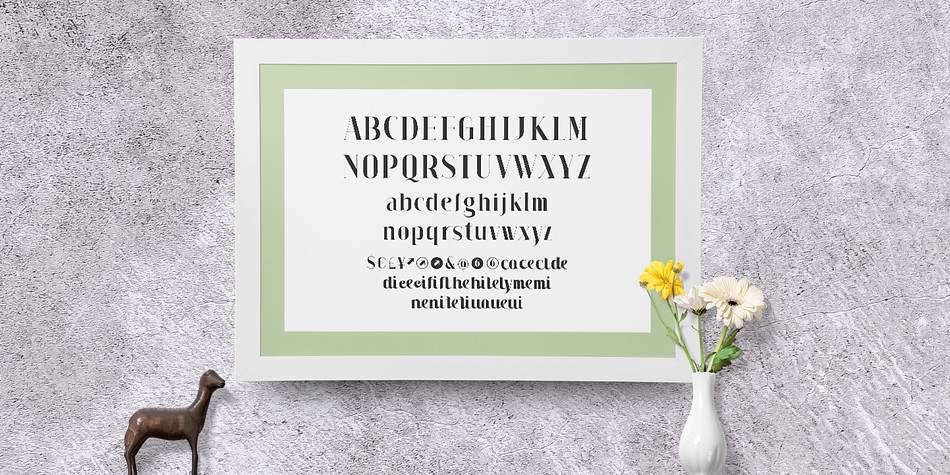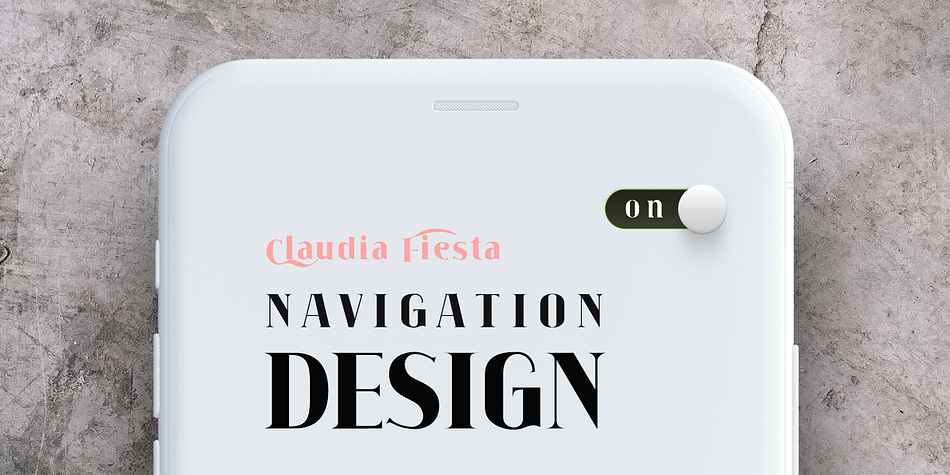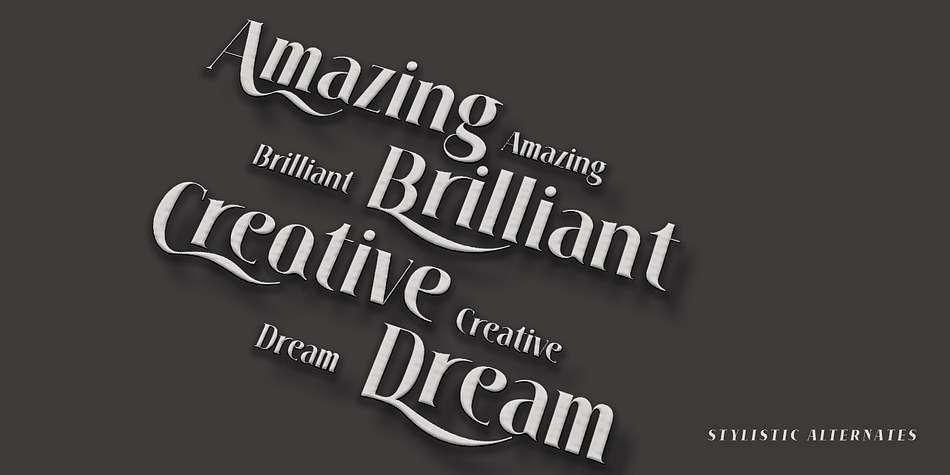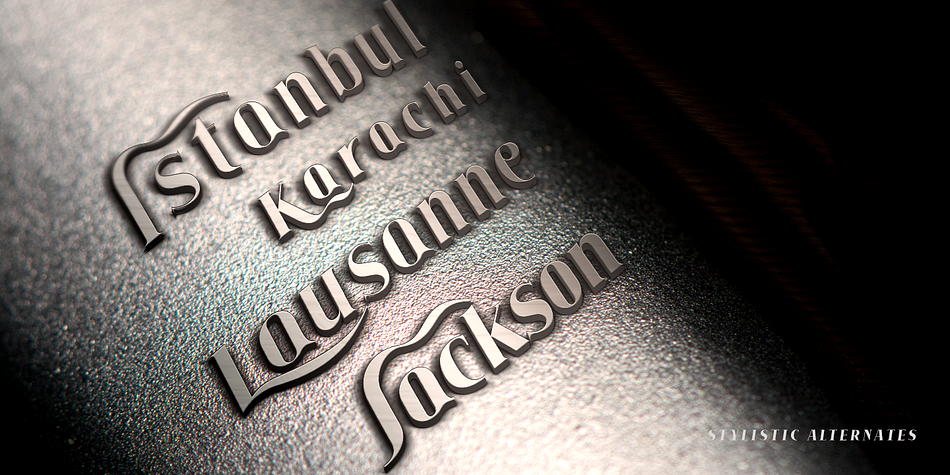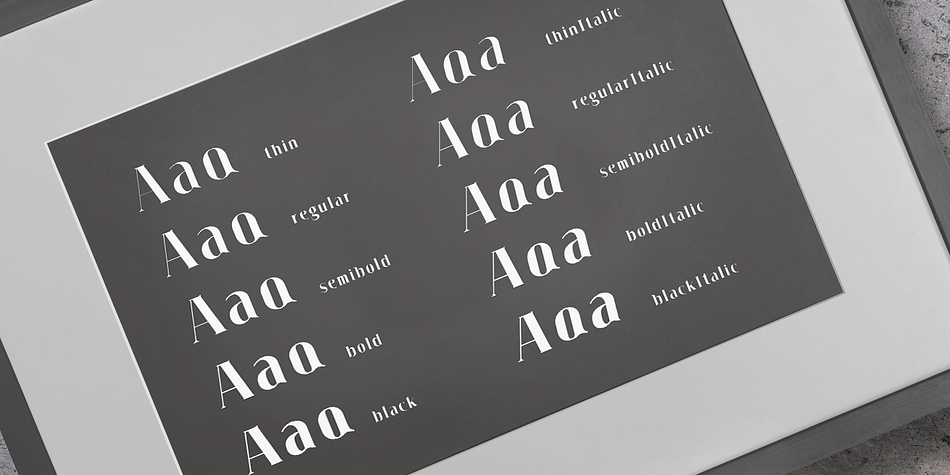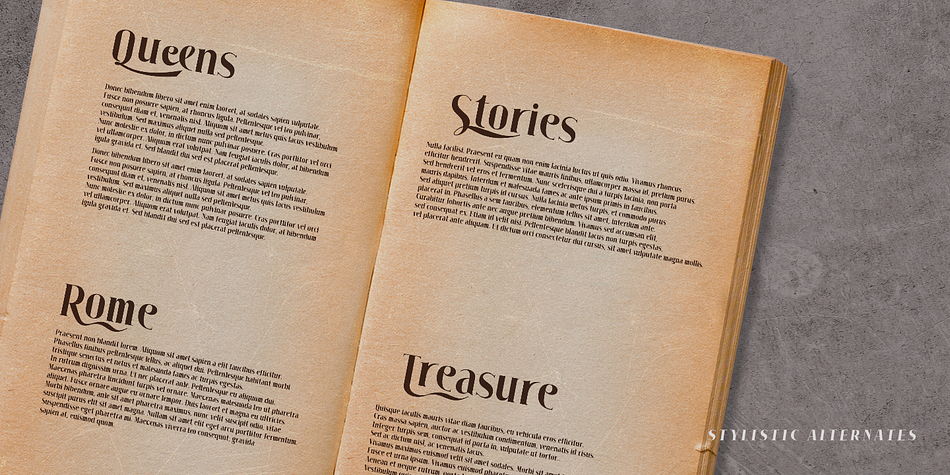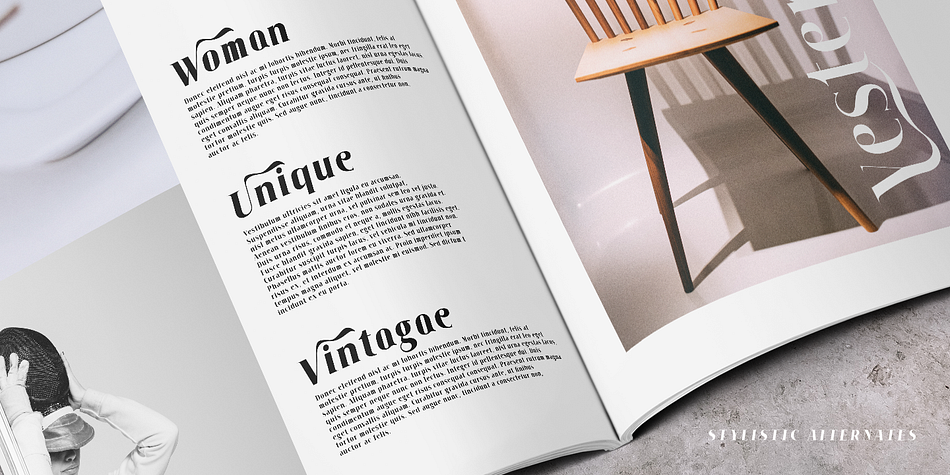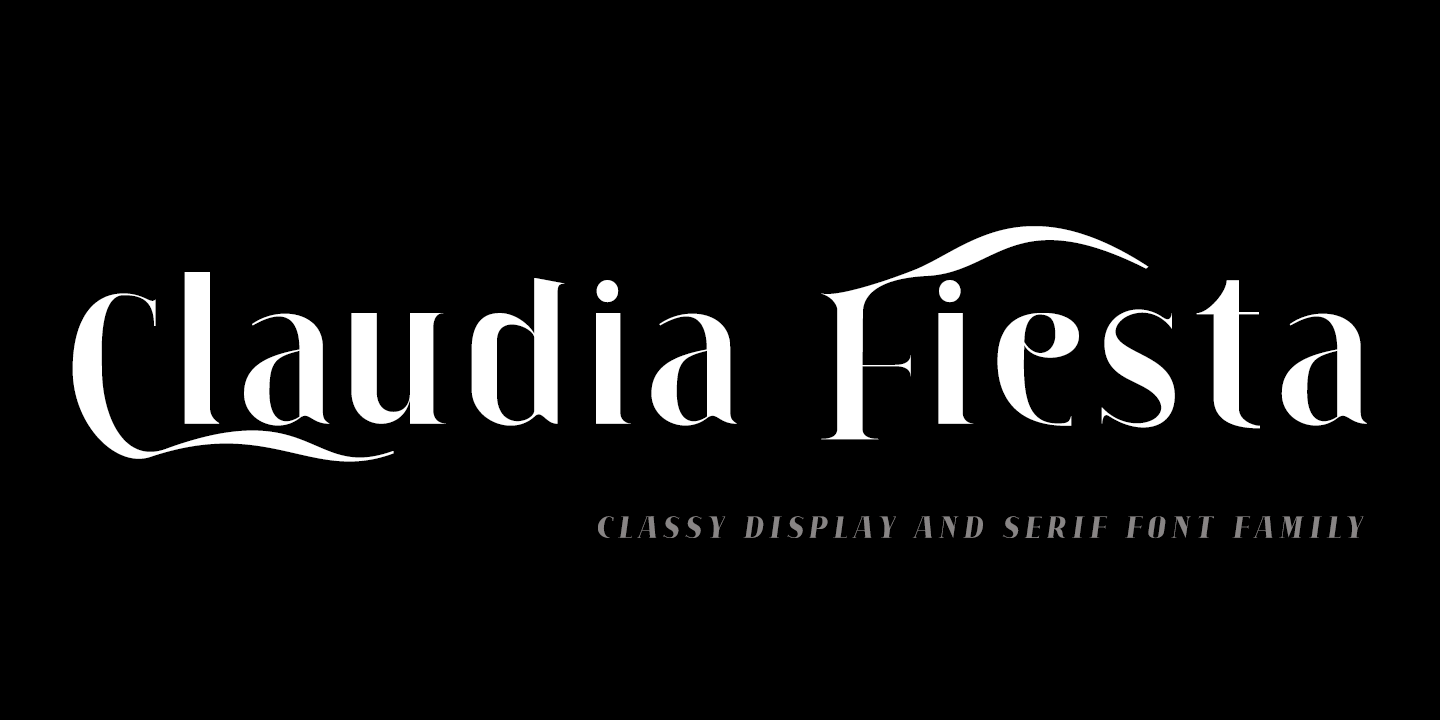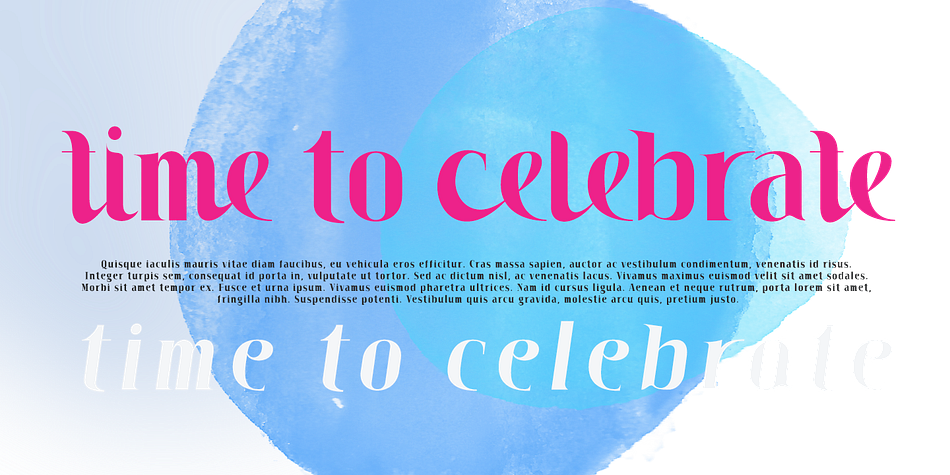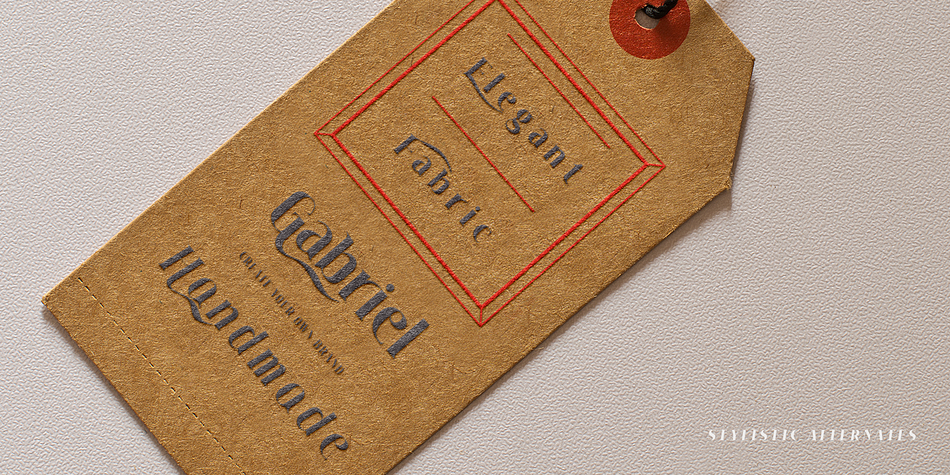
Claudia Fiesta is a display serif and serif font family. This typeface has ten styles and was published by Brenners Template.
Claudia Fiesta’s sensitive and natural contrast appeals their styles more cultivated.
The bold contrast between styles is minimized, but individual styles are displayed to stand out.
And Uppercase’s valiant Alternates will make your designs impressive.
These stylistic alternates apply to all uppercase glyphs.
You can choose according to your concepts to improve your design.